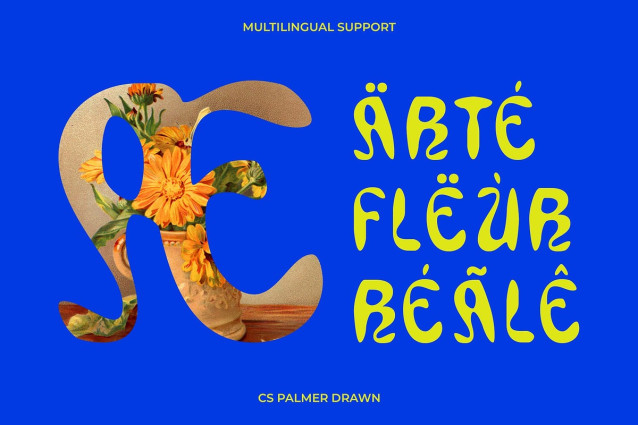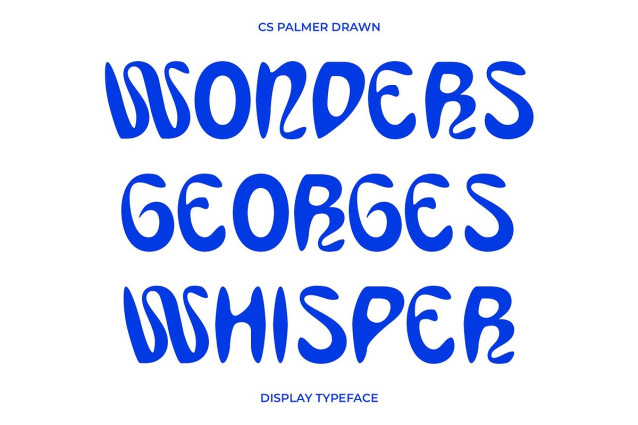
CS Palmer Drawn Font – This font embraces the beauty of Art Nouveau style with smooth lines and graceful organic curves. Its flowing letterforms create a refined, sophisticated impression, making it a perfect choice for projects that value timeless elegance.
Artistic Handmade Texture Enhanced with a drawn effect, each character of this sans serif font gains a handcrafted texture that adds personality and depth. This artistic detail brings warmth and uniqueness while preserving its clean and contemporary foundation.
Sophisticated and Aesthetic Style Balancing modern simplicity with classic artistry, this handcrafted font exudes sophistication and charm. Its organic curves combined with handmade nuances make it ideal for designs that seek both beauty and individuality.
Versatile Design Applications From branding and posters to editorials and creative projects, this aesthetic font adapts seamlessly across various design contexts. Its aesthetic qualities ensure that it enhances luxury branding, fashion layouts, and artistic compositions with a distinctive touch.
Refined Presence in Every Design With its elegant flow, clean proportions, and subtle handcrafted details, this beautiful and charming font radiates both professionalism and creativity. It provides designers with a versatile yet expressive font that elevates any project with sophistication and artistic flair.